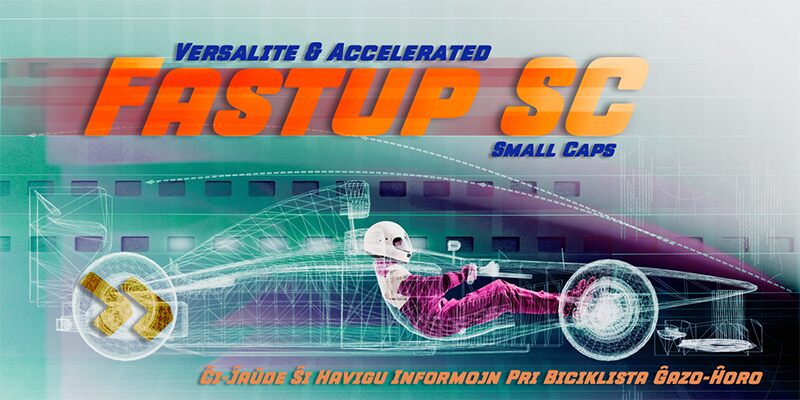
Fastup is a typographic family with two styles (regular and versalite) and two pesos each (regular and bold), a total of four geometric design fonts, with rounded finish in the vertices that provides warmth, with ascending and short -descendants short offers a Set of more compact letters, the 22 ° inclination makes them more dynamic with a current and technological style, the careful configuration of the metrics and the Kerning achieve the maximum readability for these unique fonts.
These Fonts are specially designed for advertising and editorial or corporate design.